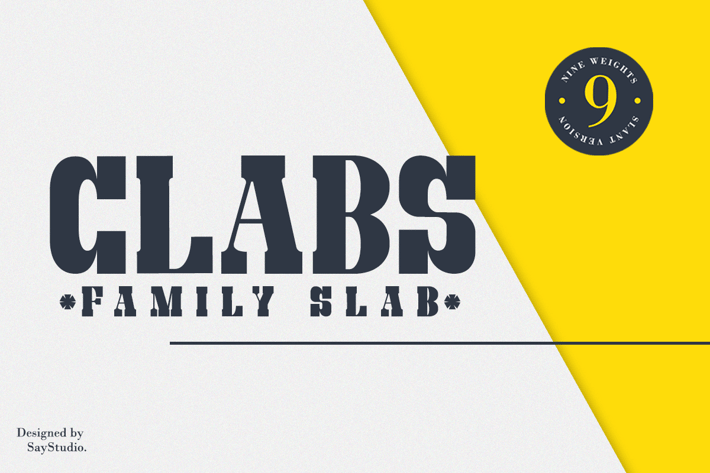
Clabs - Family Slab Font
Clabs is a versatile slab serif font family designed for branding, featuring 9 weights from Thin to Black, each accompanied by matching italics. Its bold, chunky characters combined with thin strokes and flowy italics create a unique look suitable for making strong statement headlines.
The low contrast strokes, short ascenders and descenders, and low caps lend it a vintage, rough aesthetic, making Clabs ideal for various projects like logo design, clothing branding, magazine headers, newspaper or any amazing work while supporting multiple languages.